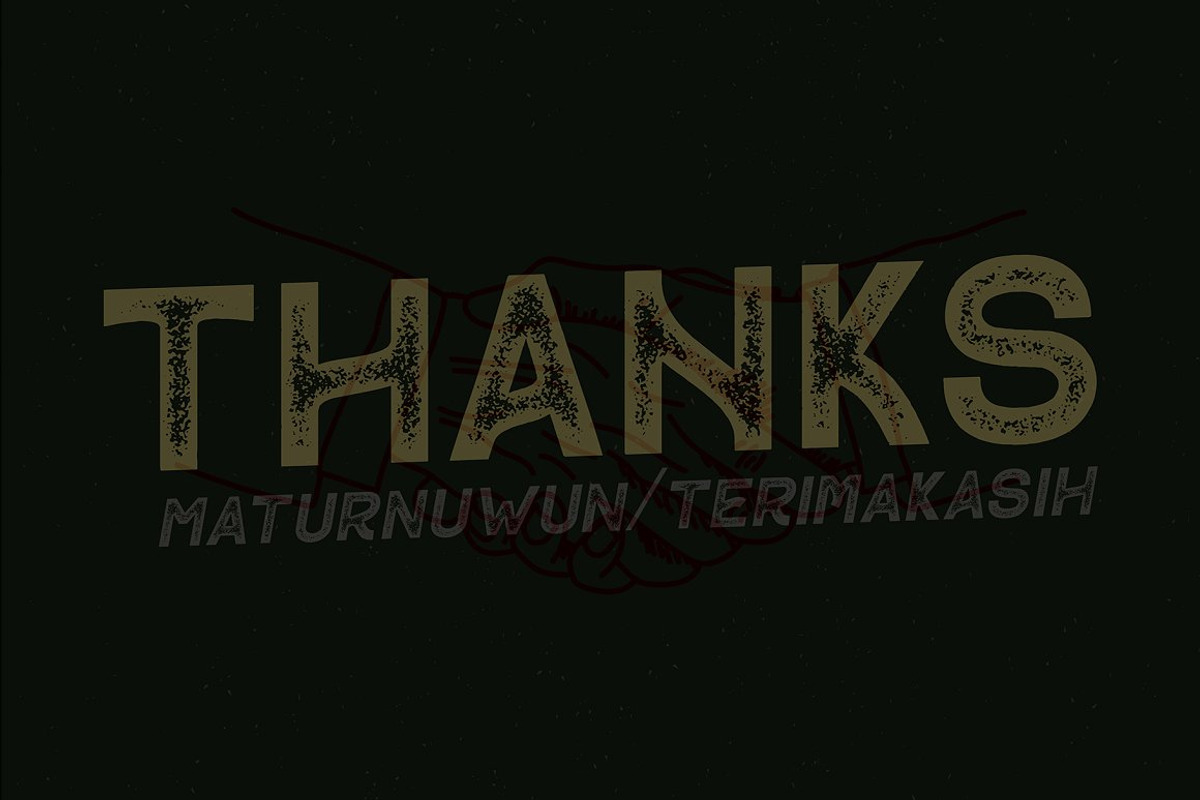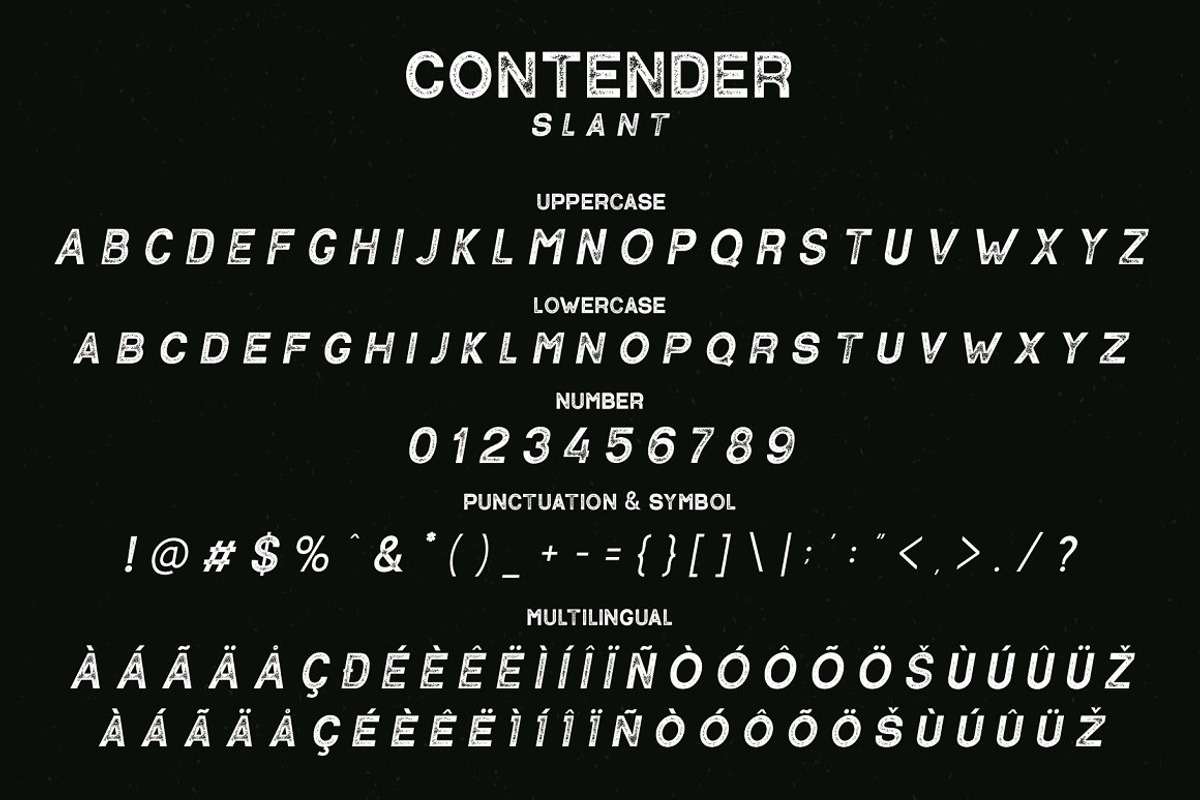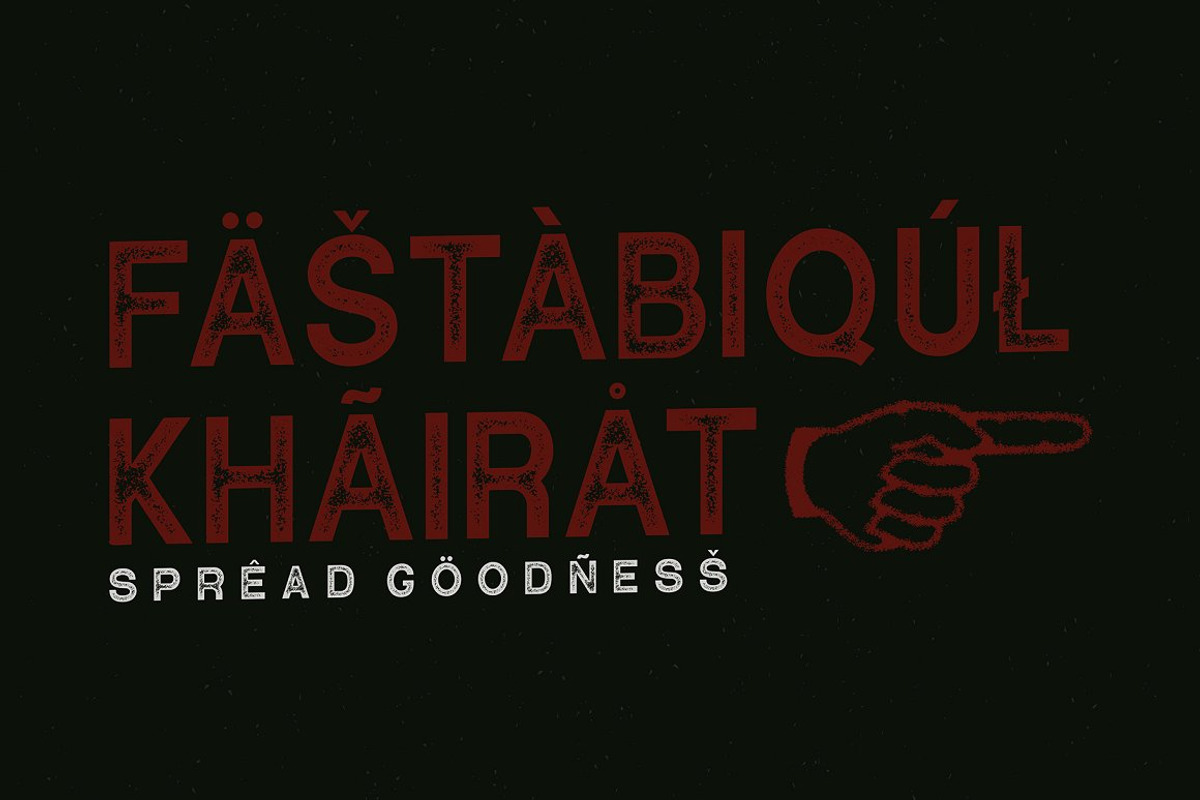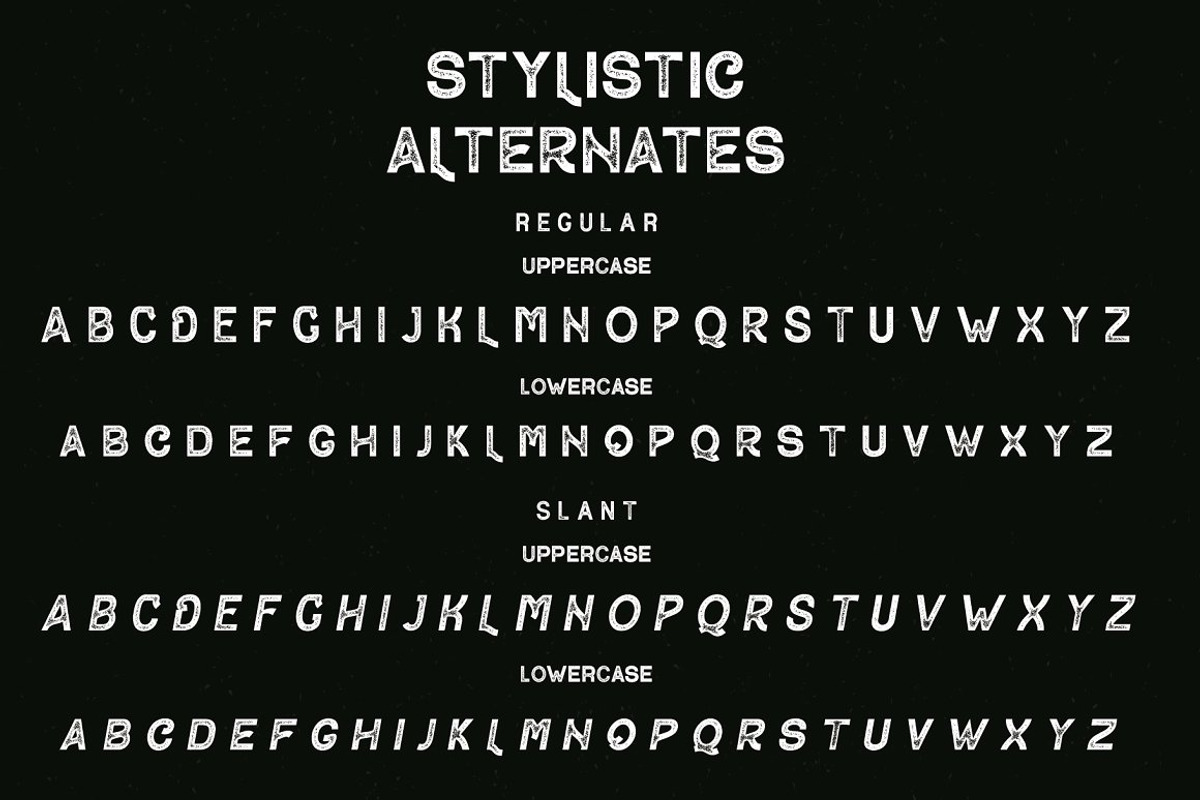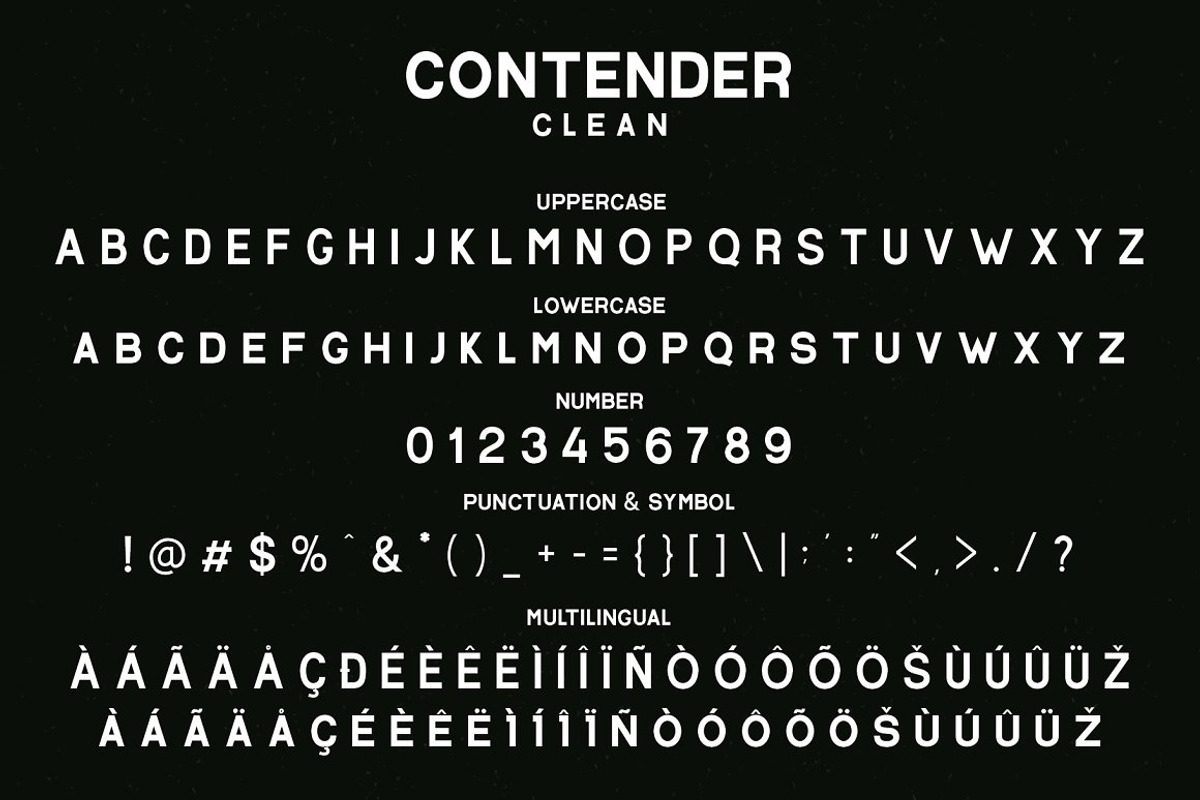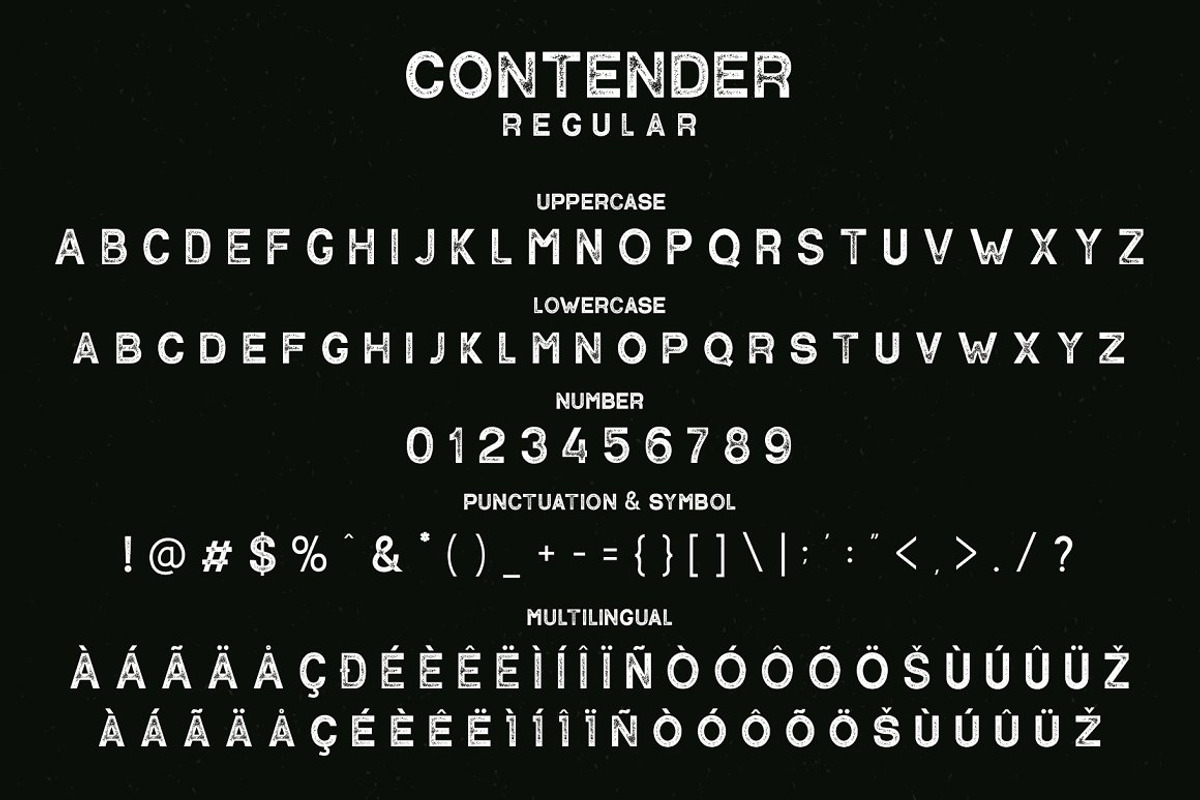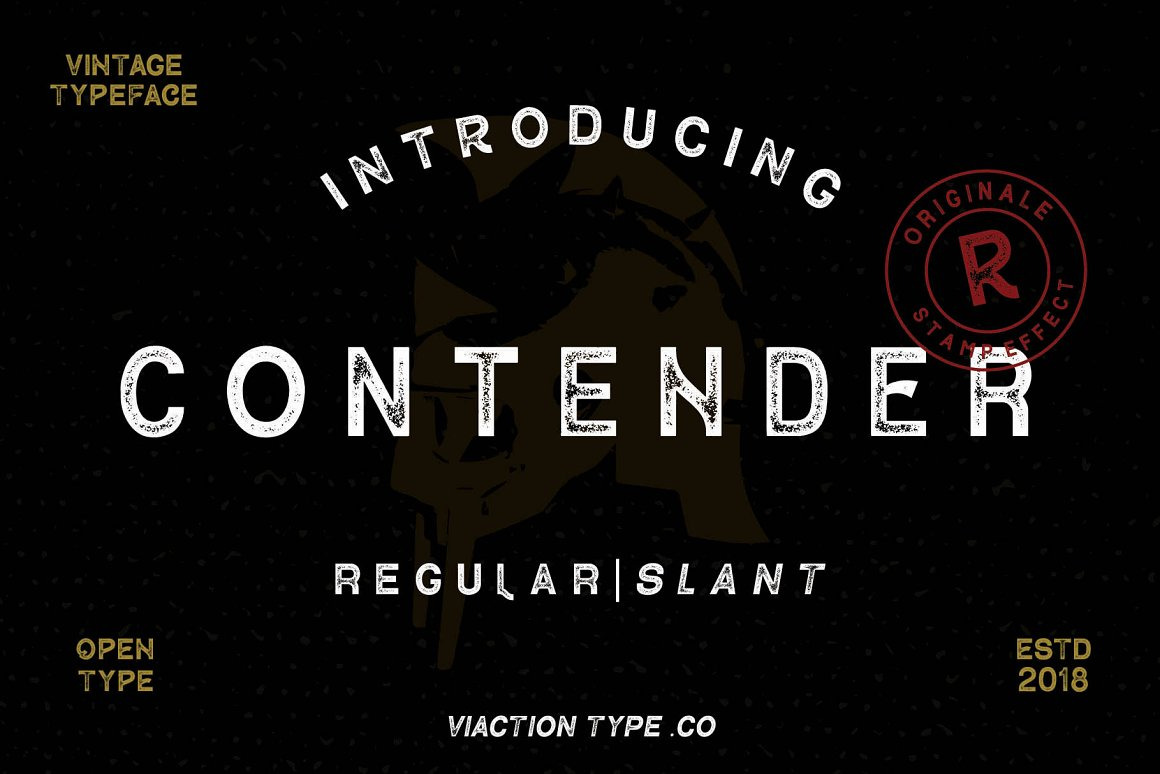
VT Contender - Vintage Display Font
Contender is a sans serif with 3 styles & stamp effect, nice applied in various products. Complete with multilingual characters, ligature and alternate. It is suitable for quote, clothing design, vintage logo, label, poster, packaging design and other designs.
Features (PUA Encoded) :
- UPPERCASE.
- LOWERCASE.
- MULTILINGUAL.
- PUNCTUATION & SYMBOL.
- STYLISTIC SET.
SUPPORT MULTILINGUAL 17 LANGUAGES :
- Afrikaans - Albanian - Catalan - Danish - Dutch - English - Estonian - Finnish - French - German Icelandic - Italian - Norwegian - Portugese - Spanisch - Swedish - Zulu